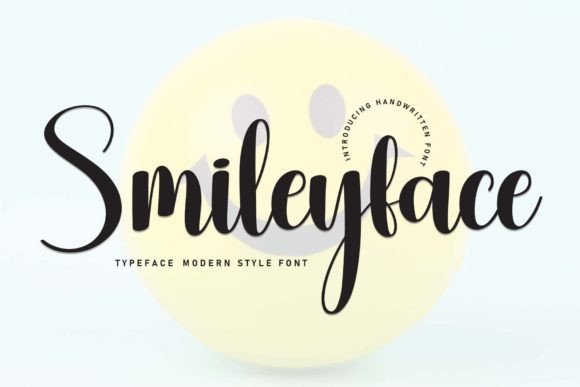
Step into a world of artistic enchantment with Smileyface Font, a captivating script font brimming with charm and personality. Designed by the talented Creativewhitee, this font is a masterpiece that will transform your creative projects into captivating expressions of joy and whimsy.
With its graceful curves and playful strokes, Smileyface Font possesses a natural and unique style that effortlessly adds a touch of elegance to any design. Its handwritten nature exudes a sense of authenticity and warmth, making it the perfect choice for projects that demand a personal touch.
Whether you're a graphic designer seeking to create captivating logos and branding, a web designer looking to infuse websites with a touch of whimsy, or a content creator longing to add a personal flair to your social media posts, Smileyface Font is the key to unlocking your creative potential. Unleash your imagination and let this font guide you to design wonders that leave a lasting impression.
Embrace the boundless versatility of Smileyface Font, a font that seamlessly adapts to various creative endeavors. Its charming script effortlessly enhances invitations, greeting cards, and wedding stationery, adding a touch of heartfelt elegance to life's special moments.
Dive into the world of digital art and let Smileyface Font elevate your creations to new heights. Its enchanting style lends itself perfectly to eye-catching social media posts, captivating blog headers, and stunning online advertisements. Let your designs shine with an unforgettable charm that captivates audiences.